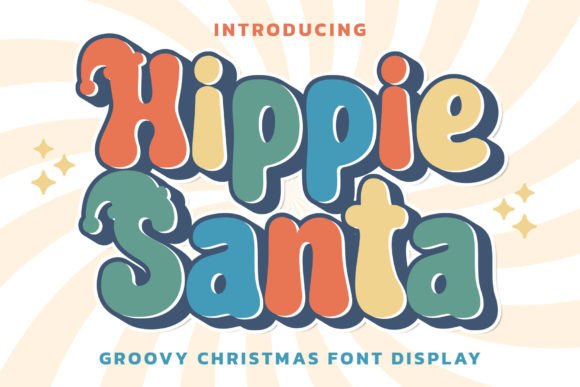
Introducing Hippie Santa Font, the ultimate choice for vintage sign enthusiasts! Crafted by the talented team at Hoperative Design, this display font is sure to captivate your imagination and elevate your creative projects to new heights.
With its versatile nature, Hippie Santa Font is suitable for a variety of applications. Whether you're designing charming greeting cards, attention-grabbing headlines, or any other creative endeavor, this font is guaranteed to make a lasting impression.
Get ready to transport your audience to a bygone era with the stylish and playful vibes of Hippie Santa Font. Its retro charm adds a touch of nostalgia to your designs, giving them a romantic and exquisite feel. Every letter is carefully designed to evoke a sense of adventure and free-spiritedness, making it the perfect choice for anyone seeking a unique and eye-catching font.
But that's not all - Hippie Santa Font is packed with creative possibilities! Let your imagination run wild as you explore the countless ways to incorporate this font into your work. Its wide range of characters and symbols allows you to create truly personalized designs that stand out from the crowd.
Add a touch of magic to your creations and let Hippie Santa Font cast its spell on your audience. Experience the allure of this font for yourself and be prepared to be amazed by the wonders it can do. Don't wait any longer - start your journey towards unforgettable designs with Hippie Santa Font today!